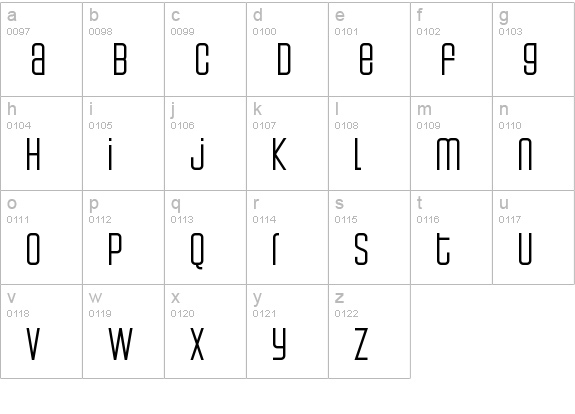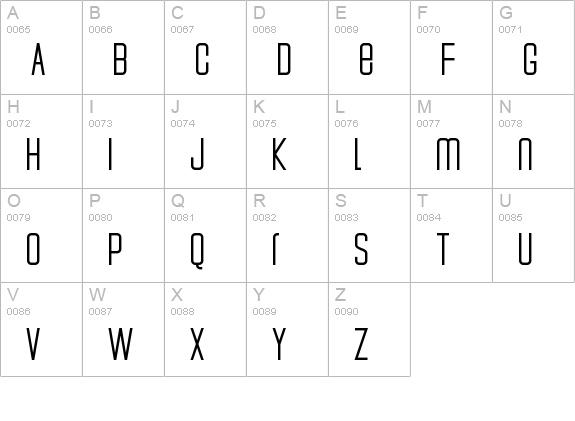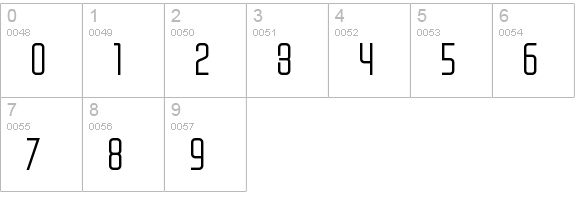
Weltron Font Details
Weltron is a sleek and modern font that exudes elegance and sophistication. Its clean lines and geometric shapes make it perfect for a variety of design projects, from branding and advertising to web design and print materials. The bold and striking letterforms of Weltron make a strong impact, while still maintaining a sense of professionalism and professionalism. One of the best things about Weltron is that it is free to download. You can easily access this amazing font at FontsMarket.com, where it is available for free download. This means that you can use Weltron in your projects without any restrictions or limitations. Whether you are a professional designer or a hobbyist, Weltron is a valuable addition to your font collection. With its versatility and modern aesthetic, Weltron is sure to elevate your designs and make them stand out. Its clean and crisp appearance will ensure that your message is delivered with clarity and impact. So why wait? Head over to FontsMarket.com today and download Weltron for free. Unleash your creativity and take your designs to the next level with this remarkable font.